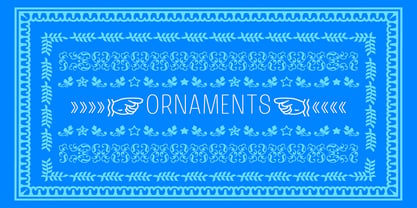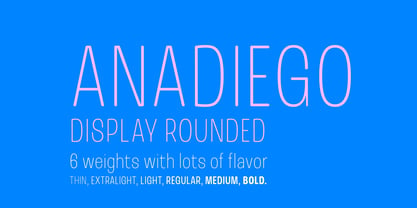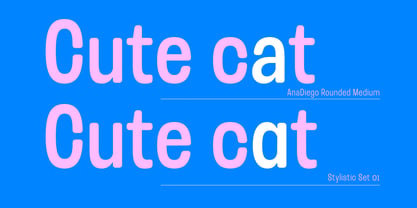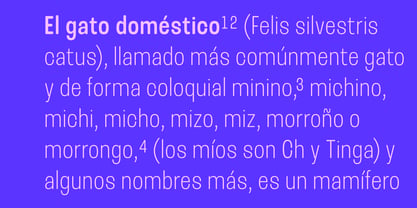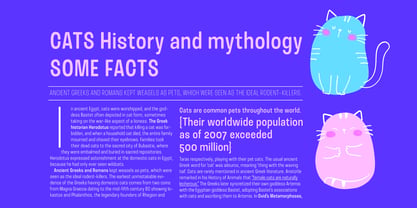
Ana Diego Rounded
by Tipastype
The Ana Diego Rounded Font Family was designed by Sandra García and published by Tipastype. Ana Diego Rounded contains 6 styles and family package options. More about this family
With the same distinctive spirit of the AnaDiego family, AnaDiego Rounded arrives with a sense of warmth and softness, expressed through its gently rounded forms. This display sans-serif typeface stands out for its tight closures in letters such as “c,” “e,” “s,” and “a,” giving it a unique texture and a personality that sets it apart from more conventional sans-serif designs. Its friendly yet striking character makes it an excellent choice for titles, subtitles, labels, and short texts that call for both clarity and presence.
Designers: Sandra García
Foundry: Tipastype